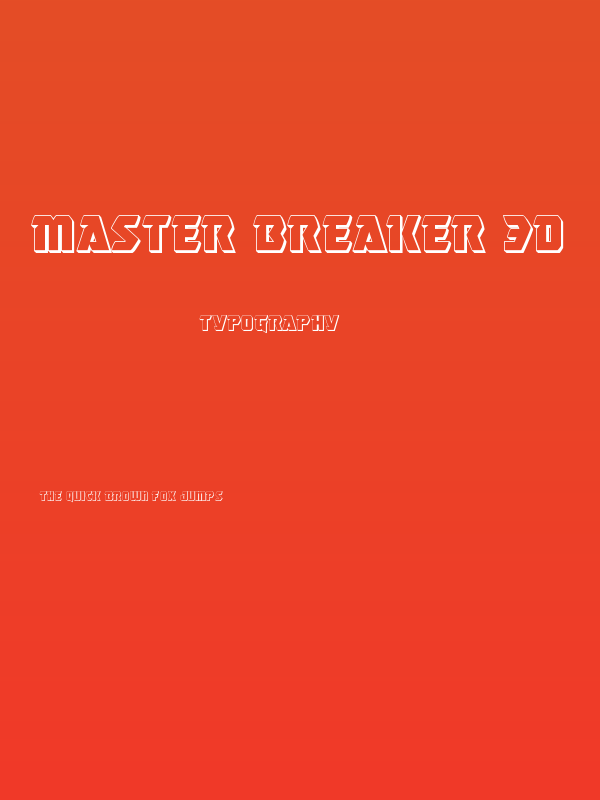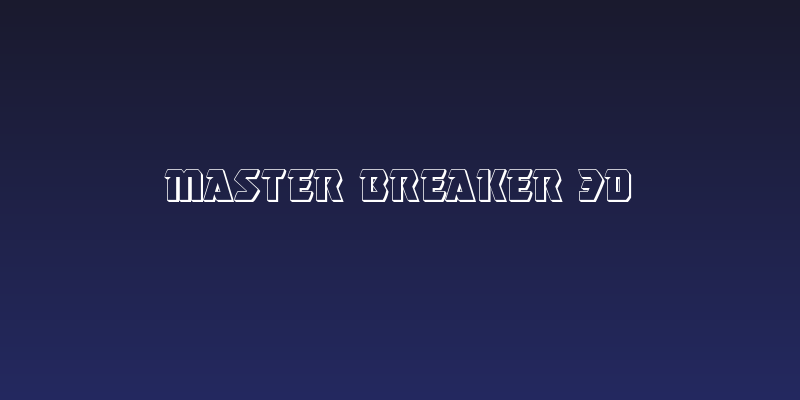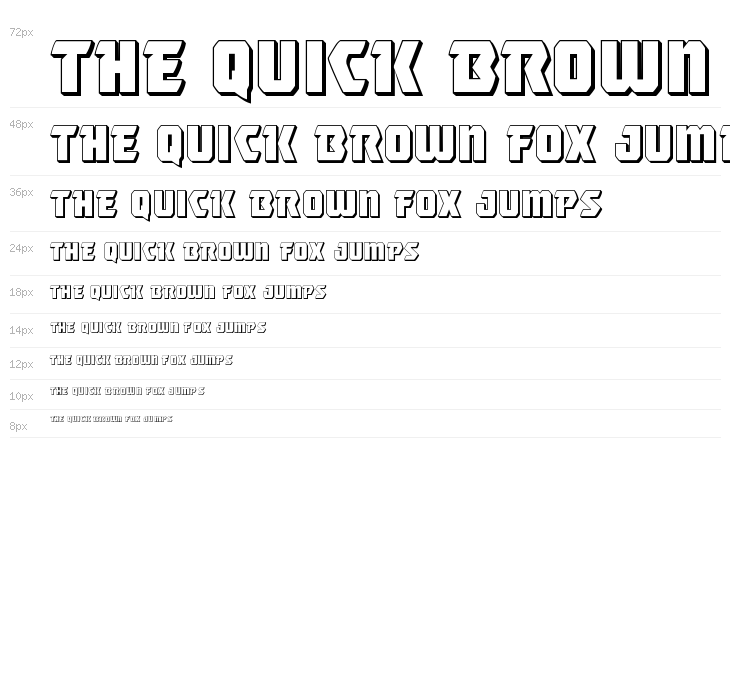
Master Breaker 3D Font
Master Breaker 3D Description
This font features a bold, three-dimensional design with a strong geometric structure. The characters are outlined, giving them a distinct shadow effect that enhances their 3D appearance. The style is reminiscent of futuristic or sci-fi themes, with angular lines and sharp edges. Each letter and number is crafted to stand out, making it ideal for attention-grabbing headlines or titles. The special characters maintain the same bold and structured aesthetic, ensuring consistency across all elements.
| Overall Style | Futuristic, Decorative |
| Proposed Projects | Ideal for sci-fi movie posters, video game titles, or any project needing a bold, futuristic look. |